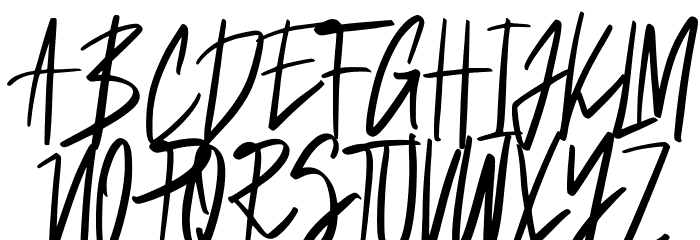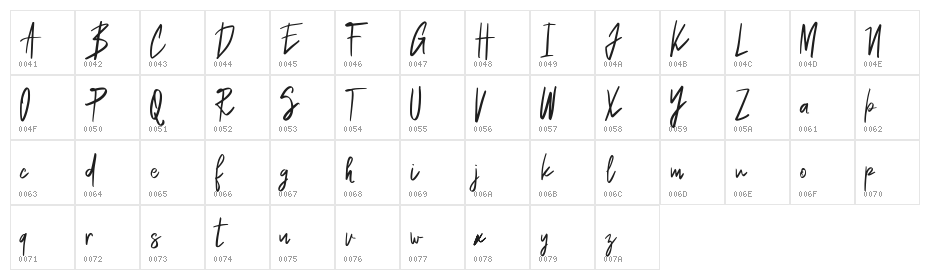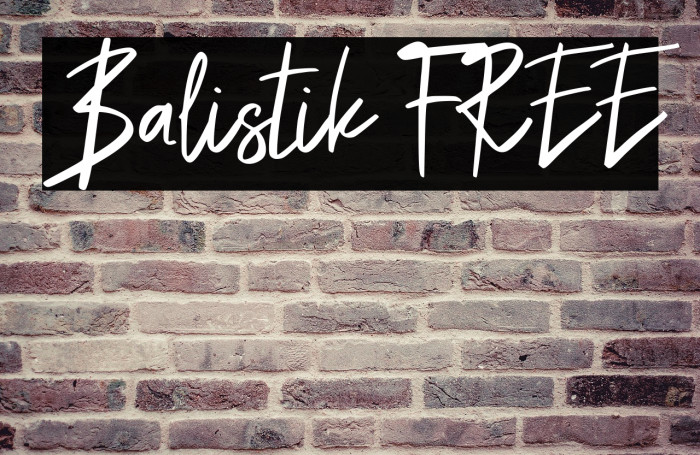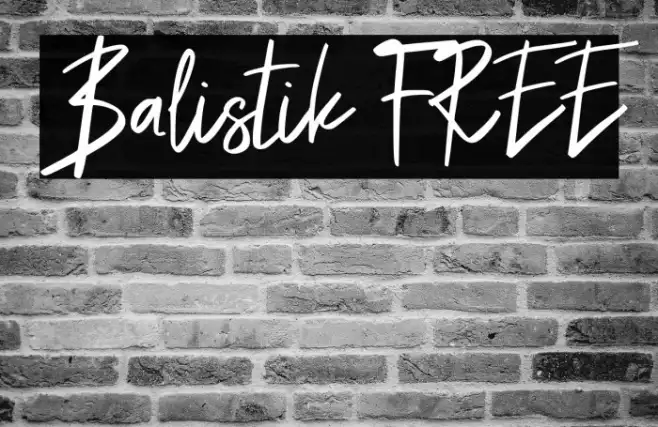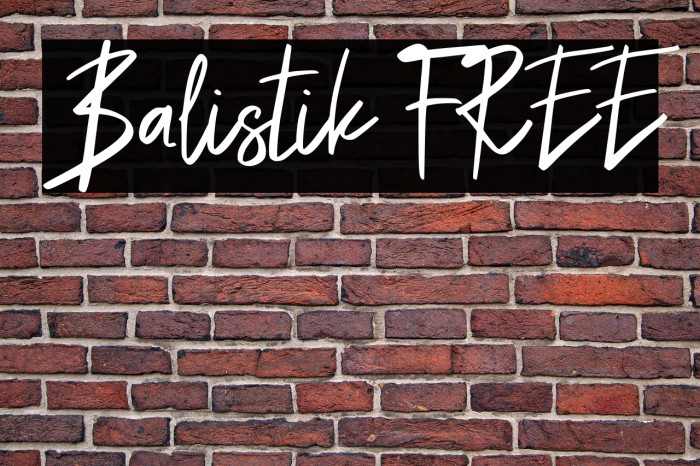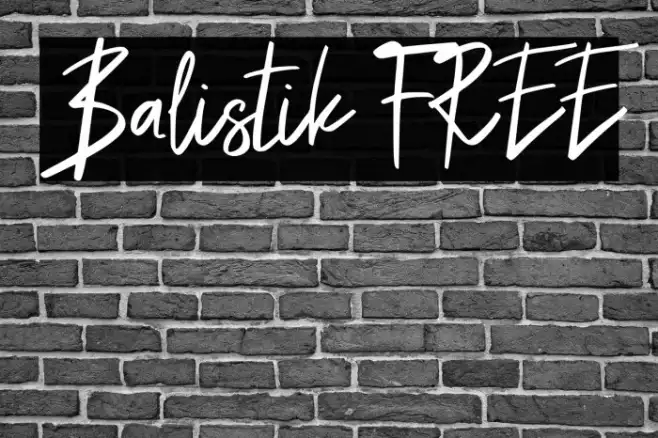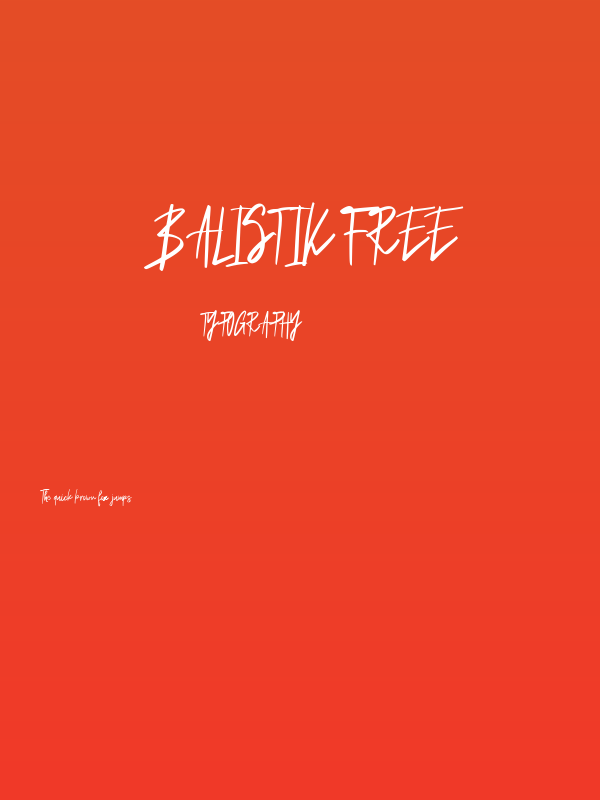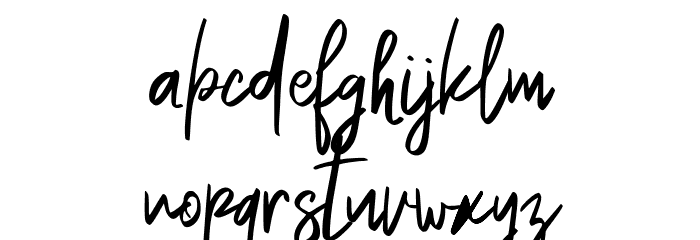
Balistik FREE Font
Balistik FREE Description
This font features an energetic and dynamic handwritten style, characterized by its bold and expressive strokes. The letters are tall and slightly slanted, giving a sense of movement and urgency. The uppercase and lowercase letters maintain a consistent style, with elongated verticals and sharp angles. The font includes a full set of uppercase and lowercase letters, numbers, and a selection of special characters. Its informal and artistic appearance makes it suitable for creative projects that require a personal touch.